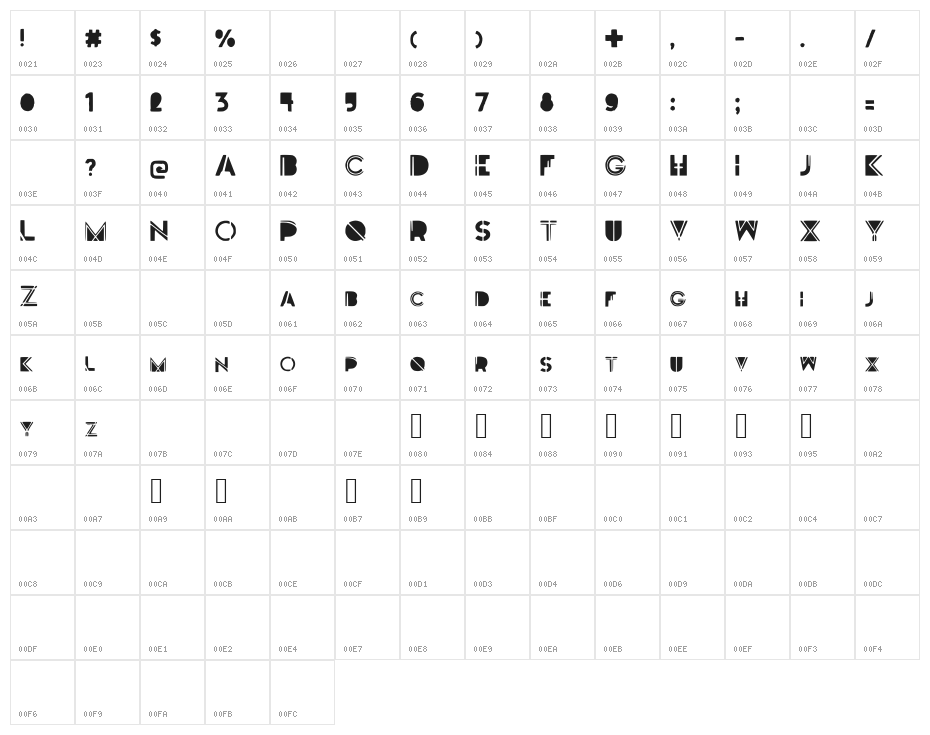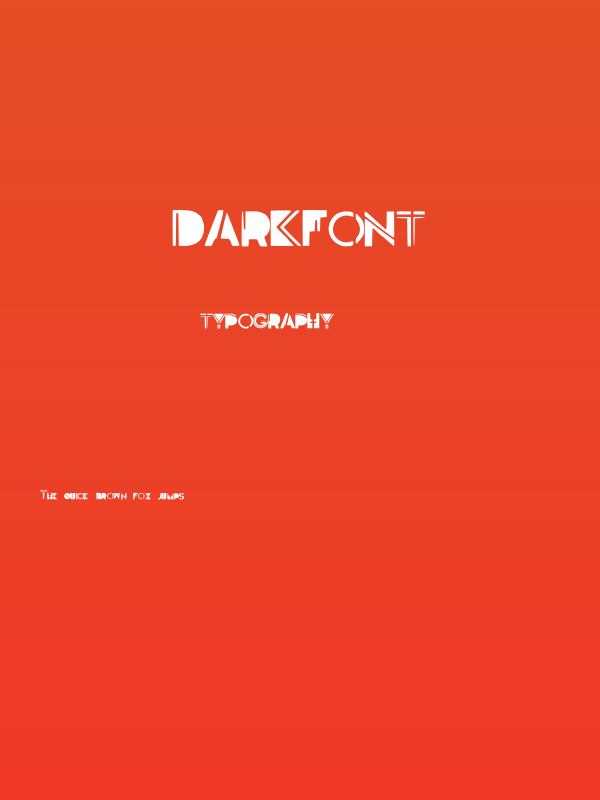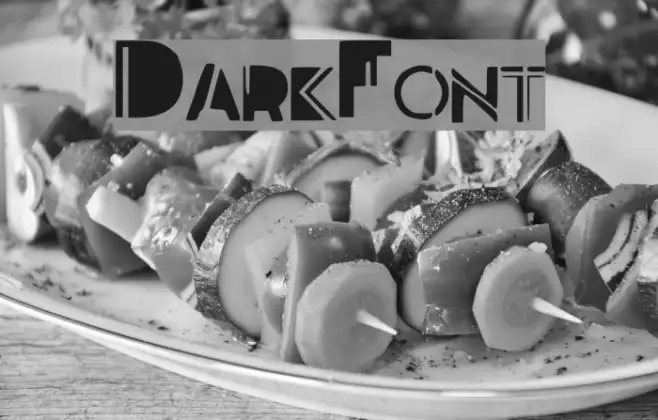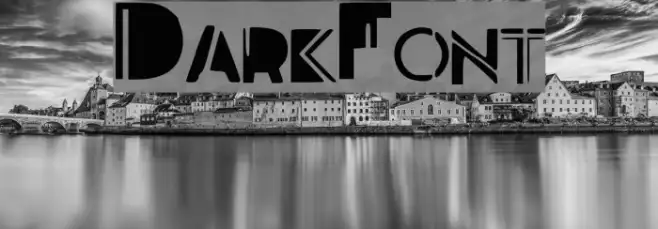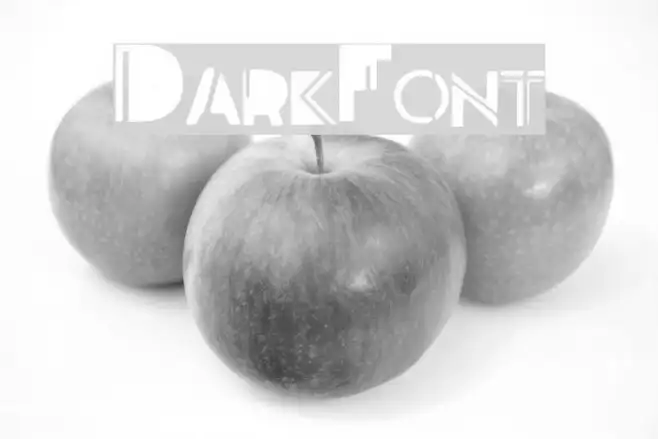
DarkFont Font
DarkFont Description
This font features a bold and striking design with a modern, geometric aesthetic. The characters are composed of thick, solid lines with unique cutouts and angles, creating a dynamic and eye-catching appearance. The uppercase letters are particularly distinctive, with some incorporating diagonal lines and others featuring circular cutouts. The numbers and special characters maintain this bold style, ensuring consistency across all glyphs. This font's unique style makes it suitable for projects that require a strong visual impact.
| Proposed Projects | Ideal for posters, logos, and branding materials that require a strong visual impact. |